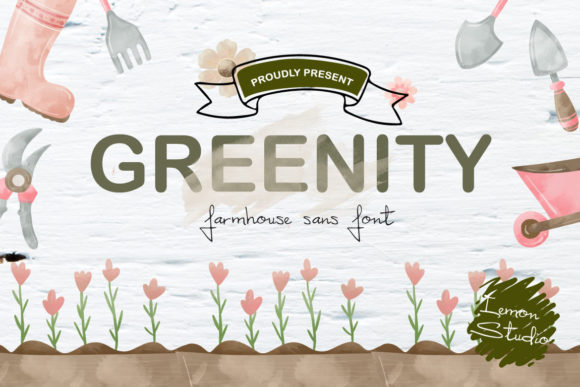
Introducing Greenity Font: The Perfect Farmhouse Sans Serif Font for Your Design Needs
In the world of typography, fonts play a crucial role in conveying the tone and aesthetic of a design project. When it comes to creating visually appealing and rustic-chic designs, the right font can make all the difference. This is where Greenity Font comes in – a beautiful farmhouse sans serif font that is perfect for a variety of design applications. In this article, we’ll explore the features and benefits of Greenity Font, and how it can elevate your design projects.
What is Greenity Font?
Greenity Font is a sans serif font that is specifically designed to complement script fonts and add a touch of rustic charm to your designs. With its simple and clean lines, Greenity Font is perfect for creating visually appealing headings, logotypes, and text-based designs. Its farmhouse-inspired aesthetic makes it an ideal choice for projects that require a down-to-earth and cozy feel.
Design Applications for Greenity Font
Greenity Font is a versatile font that can be used in a variety of design projects, including:
- Farmhouse Signs: Greenity Font was originally designed with farmhouse signs in mind. Its simple and rustic aesthetic makes it perfect for creating charming signs that add a touch of country charm to any room.
- Headings and Logotypes: Greenity Font is ideal for creating bold and eye-catching headings and logotypes. Its clean lines and simple design make it perfect for creating professional-looking designs that require a touch of rustic charm.
- Wedding Invitations: Greenity Font is a popular choice for wedding invitations, as it adds a touch of rustic elegance to any design. Its simple and clean lines make it perfect for creating beautiful and memorable wedding stationery.
- Labels and Tags: Greenity Font is also great for creating labels and tags. Its simple design and rustic aesthetic make it perfect for creating charming labels and tags that add a touch of country charm to any project.
Benefits of Using Greenity Font
Greenity Font offers a range of benefits that make it an ideal choice for designers and crafters. Some of the benefits of using Greenity Font include:
- Easy to Read: Greenity Font is a sans serif font that is easy to read, even at small sizes. This makes it perfect for creating designs that require a lot of text, such as signs, labels, and tags.
- Versatile: Greenity Font is a versatile font that can be used in a variety of design projects. Its simple and rustic aesthetic makes it perfect for creating designs that require a touch of country charm.
- Complements Script Fonts: Greenity Font is specifically designed to complement script fonts. Its simple and clean lines make it perfect for pairing with script fonts to create beautiful and visually appealing designs.
Tips for Using Greenity Font
Here are some tips for using Greenity Font in your design projects:
- Pair with Script Fonts: Greenity Font is specifically designed to complement script fonts. Try pairing it with a script font to create a beautiful and visually appealing design.
- Use for Headings: Greenity Font is perfect for creating bold and eye-catching headings. Try using it as a heading font to add a touch of rustic charm to your designs.
- Experiment with Colors: Greenity Font looks great in a variety of colors. Try experimenting with different colors to find the perfect shade for your design.
Greenity Font is a beautiful farmhouse sans serif font that is perfect for a variety of design applications. Its simple and rustic aesthetic makes it ideal for creating charming signs, headings, logotypes, and text-based designs. With its ease of use and versatility, Greenity Font is a great addition to any designer’s font collection.